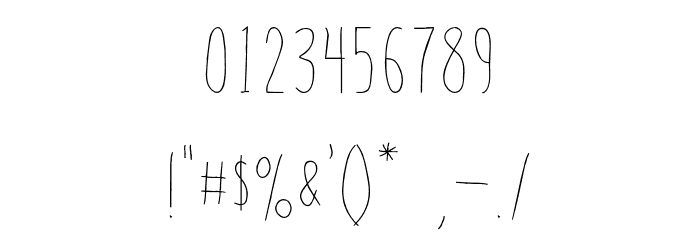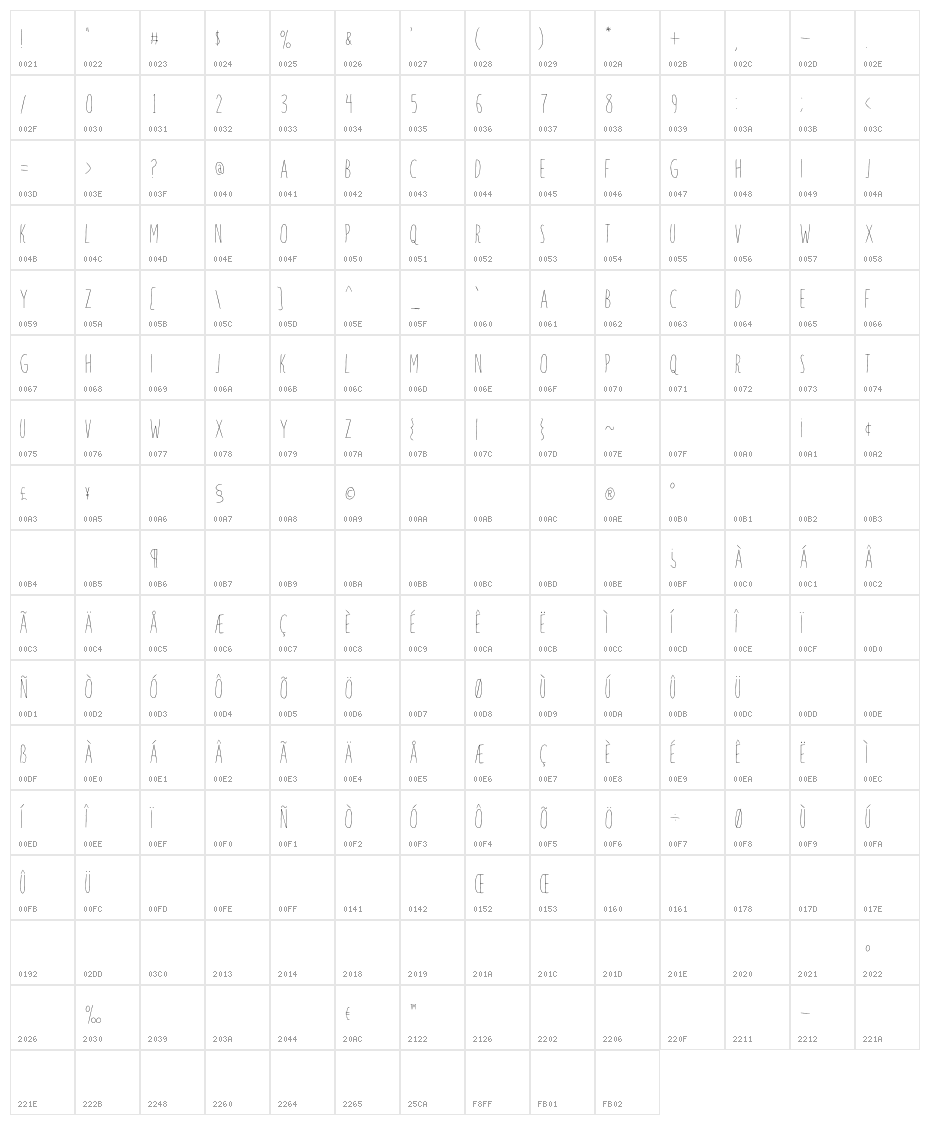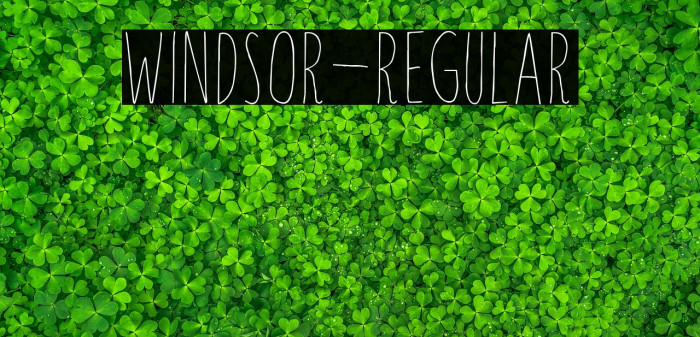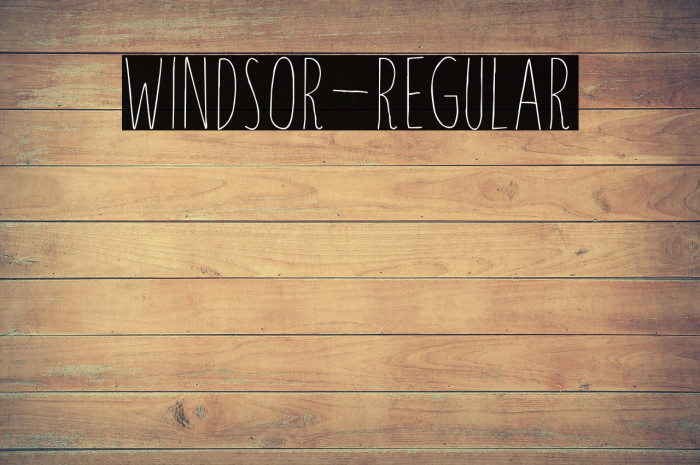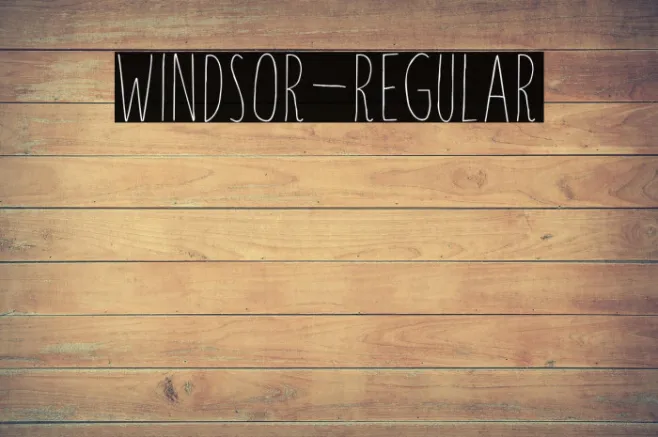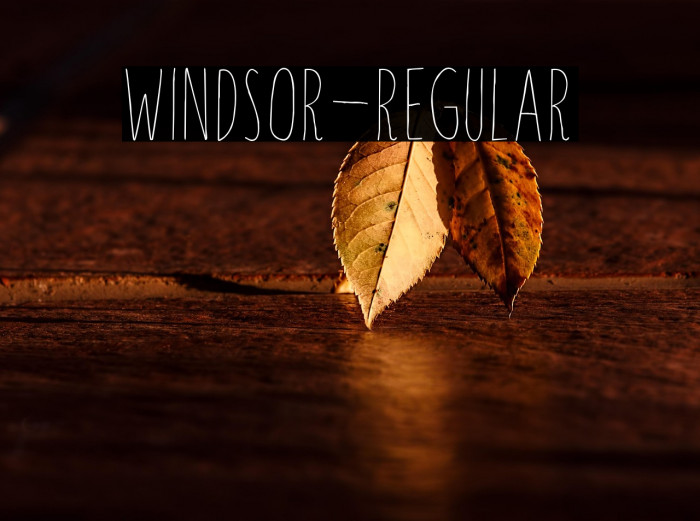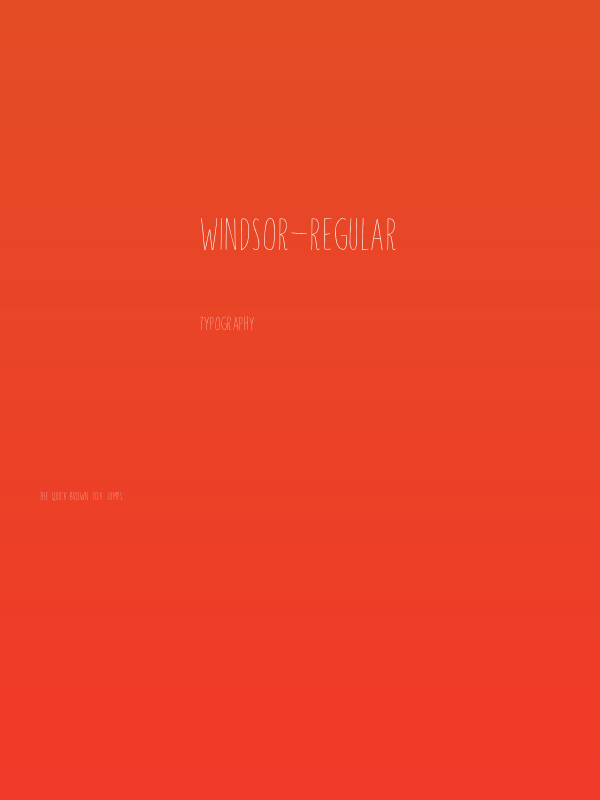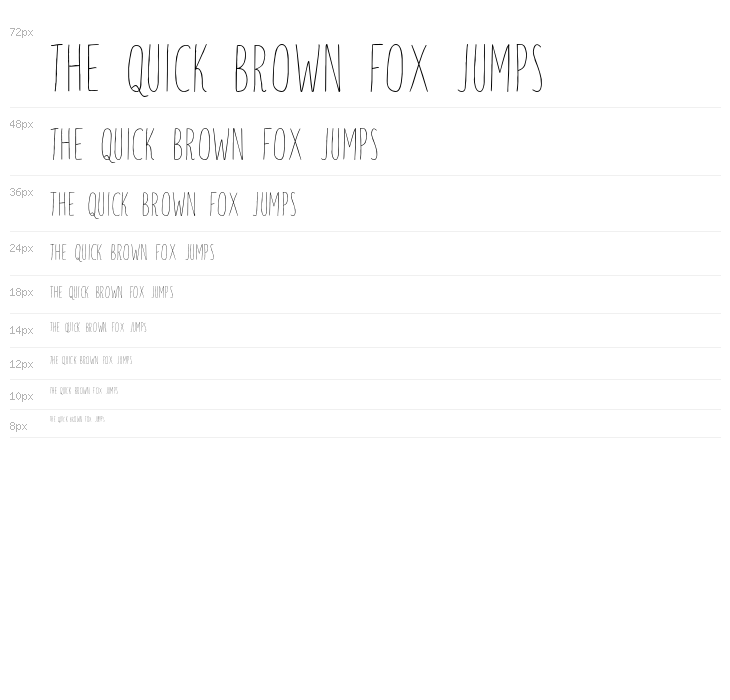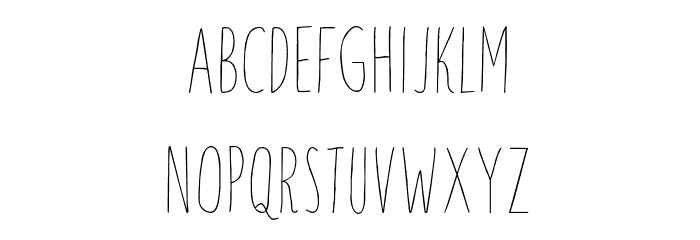
Windsor-Regular Font
Windsor-Regular Description
This font features a unique, hand-drawn aesthetic with tall, narrow characters that give it a whimsical and artistic feel. The strokes are thin and slightly irregular, adding a touch of personality and charm. The uppercase and lowercase letters maintain a consistent style, with a playful yet elegant appearance. The numbers and special characters follow the same design principles, ensuring a cohesive look across all elements. This font's distinctive style makes it suitable for creative projects that require a personal touch.
| Overall Style | Artistic |
| Proposed Projects | Ideal for greeting cards, invitations, artistic posters, and branding materials that seek a personal and creative touch. |